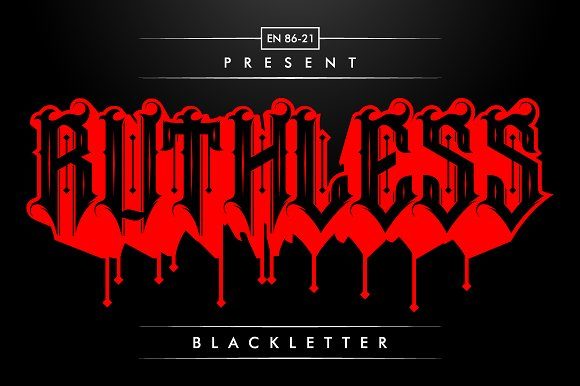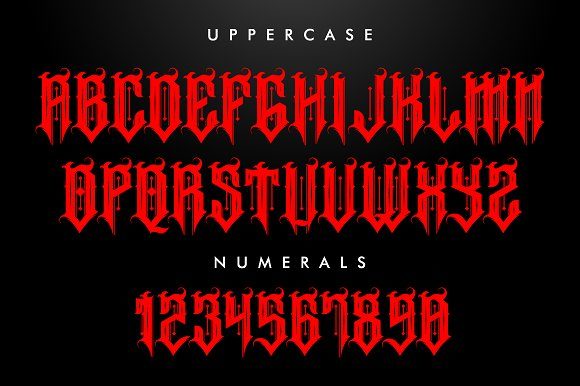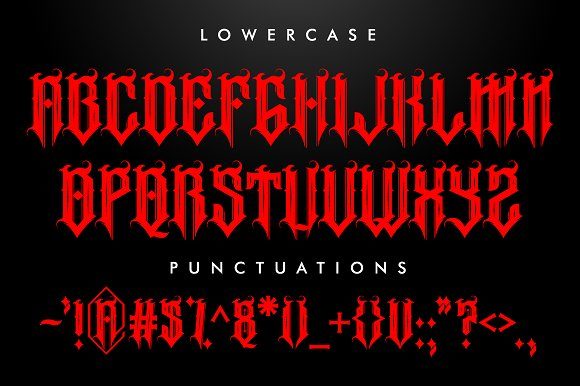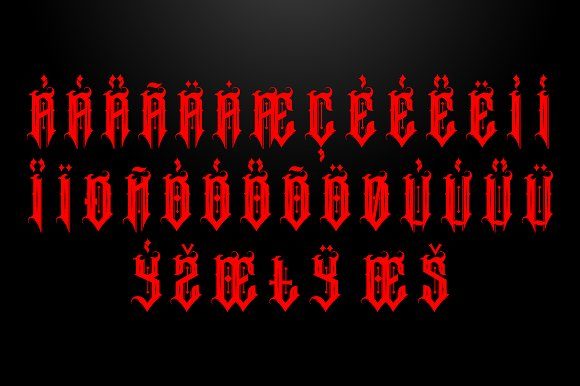
Ruthless Font
About the Ruthless Font
Welcome to the world of Ruthless Font, a typeface that will inspire your next great project. The Ruthless is an unique blackletter font which was inspired by tattoo’s and old band logos. It has an overall scary feel and will add a striking touch to your designs.
Ruthless excels in short, impactful applications such as logos, headlines, and posters where its bold, rebellious character can make a statement. It’s ideal for brands targeting a rock and roll, edgy, or gothic aesthetic. Avoid using it for body text or UI elements; its highly stylized forms are difficult to read in large blocks.
Pairing Ruthless with a clean sans-serif like Helvetica Neue for body copy creates a strong contrast, balancing its aggressive energy with legibility. Alternatively, a classic serif like Garamond offers a refined counterpoint, adding a touch of sophistication to offset the font’s raw intensity. For a more cohesive dark aesthetic, consider pairing it with a geometric sans-serif like Futura.
The font’s overall personality is aggressive and bold, conveying power and rebellion. Its sharp angles and gothic influences make it unsuitable for projects requiring elegance or subtlety.
Ruthless Font Usage Examples
Ruthless Font Example